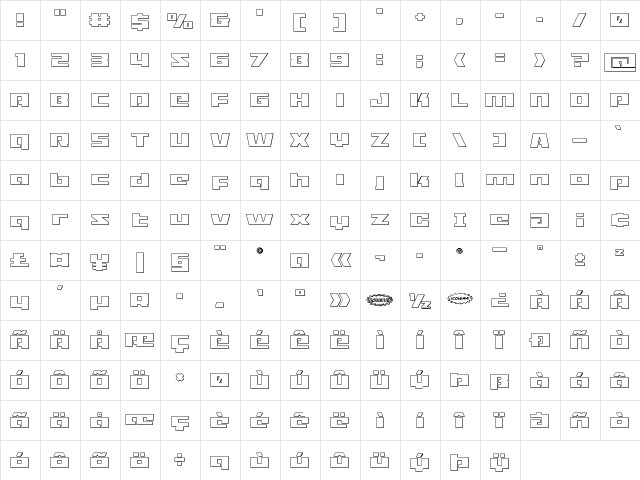
Turbo Charge Outline
Design Context for Turbo Charge Outline Typeface
Turbo Charge Outline is built around its visual character rather than neutral utility — its distinctive forms are designed to make an impression at display sizes.
Font Pairing: Pair with a clean neutral sans-serif for body copy to let Turbo Charge Outline's character lead without overwhelming the composition.
Pro Tip: Treat Turbo Charge Outline as the centrepiece of your typographic hierarchy. One strong heading set in a decorative face can carry an entire layout.